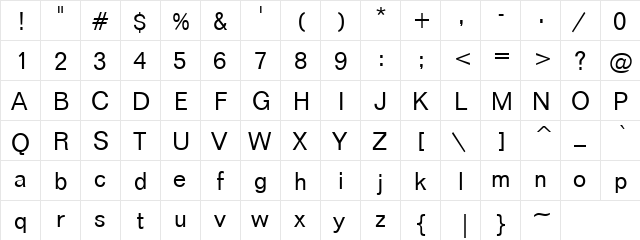
Folder De Strica Regular
Design Context for Folder De Strica Typeface
Folder De Strica takes a measured approach to typography — its balanced proportions and neutral character make it a reliable workhorse for both digital and print work.